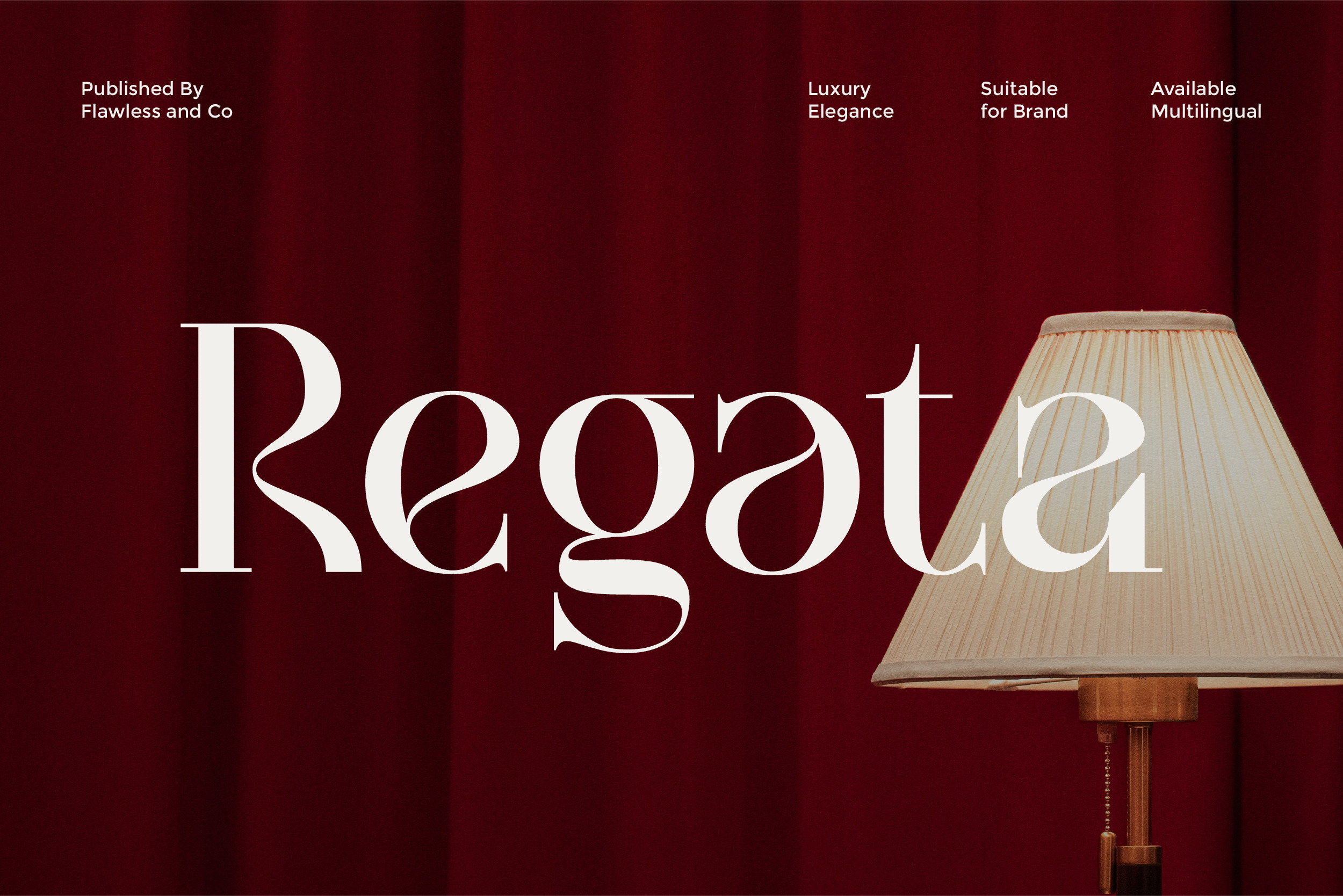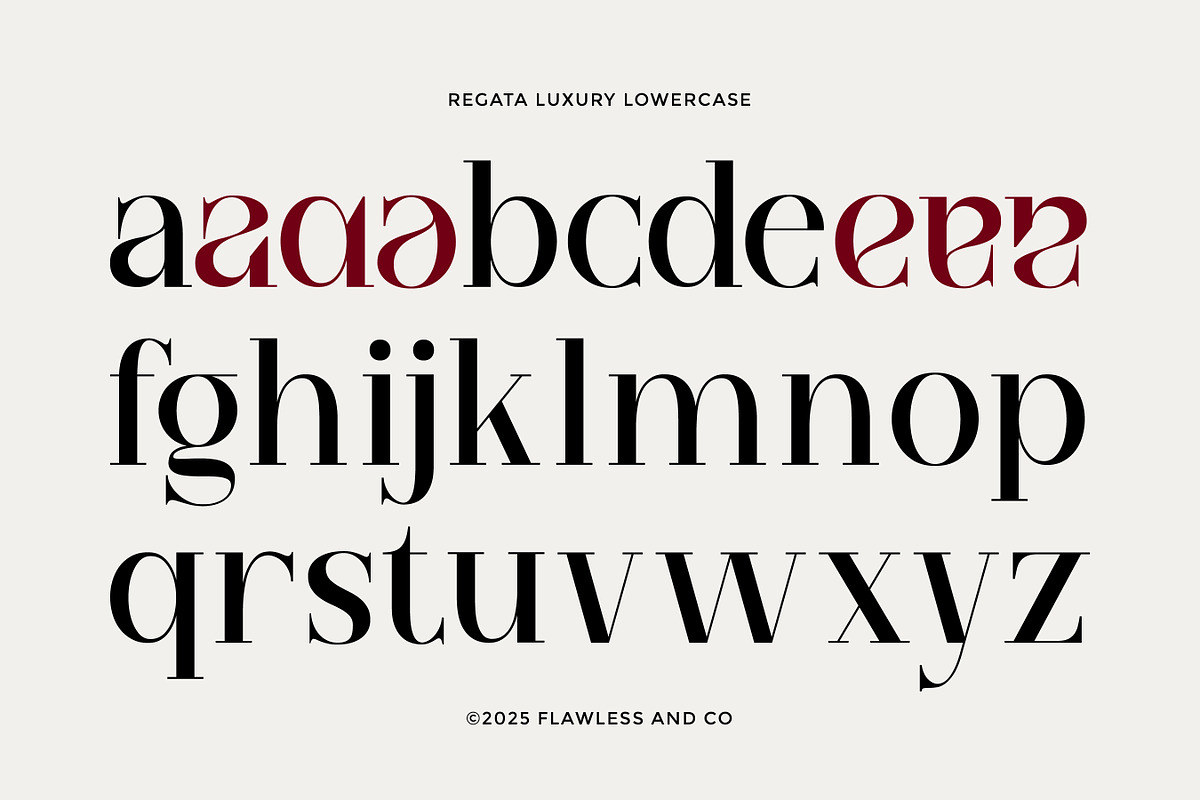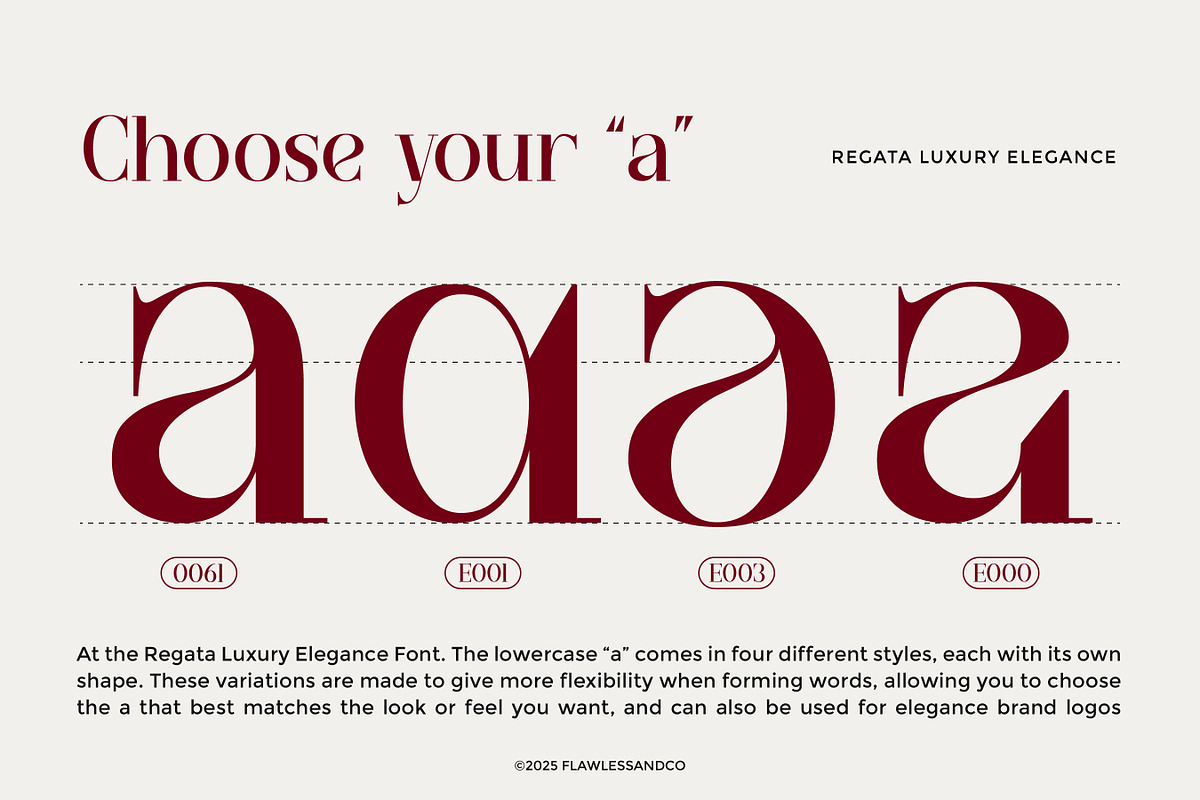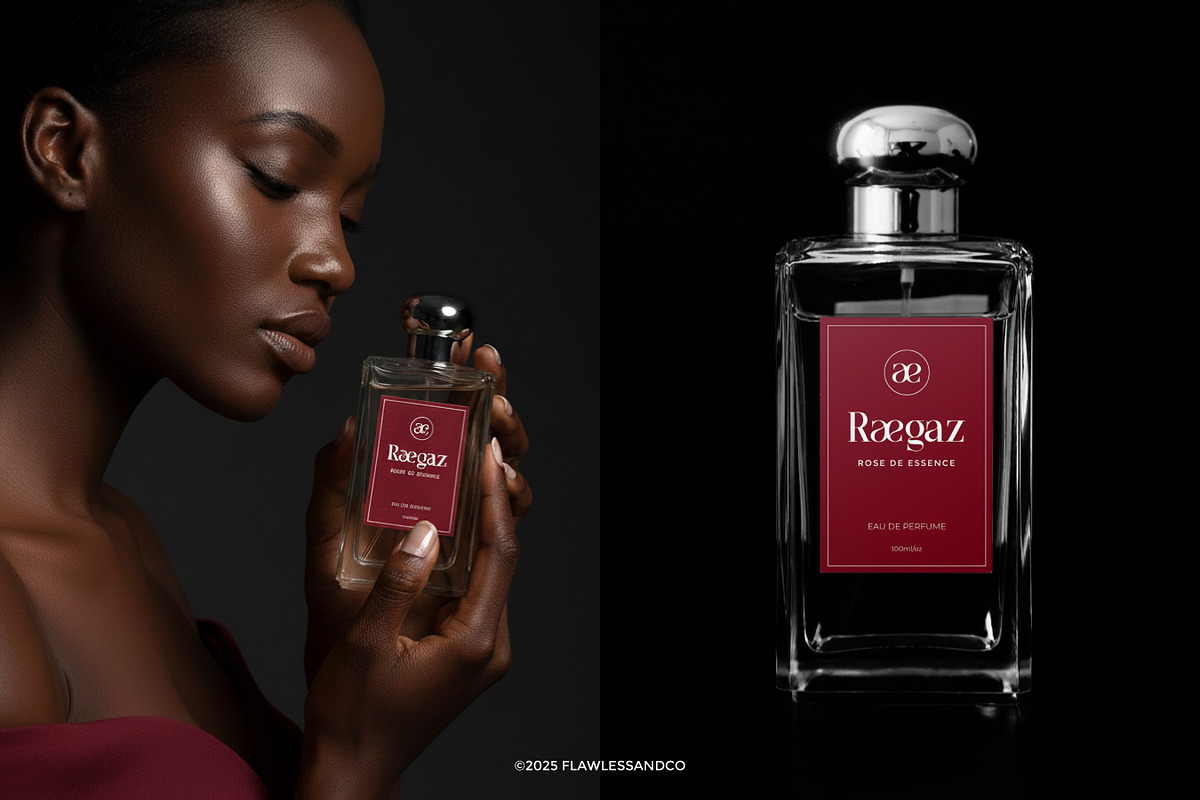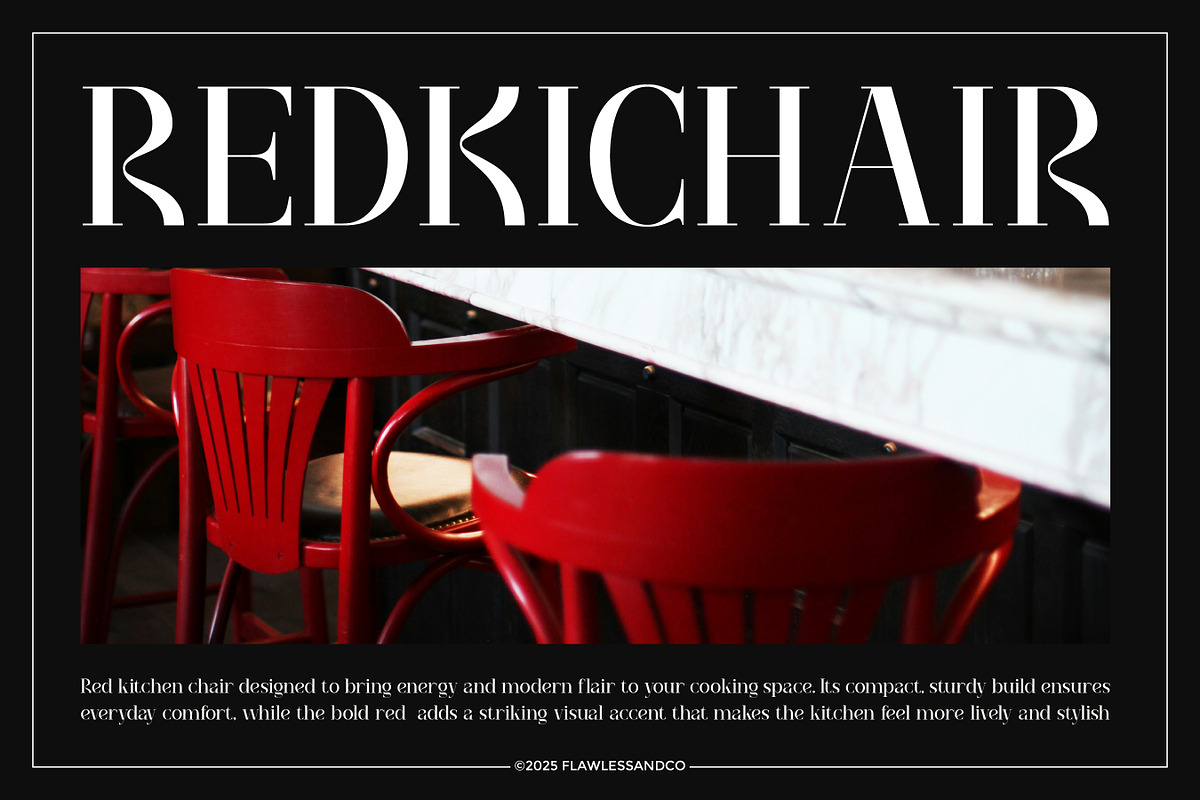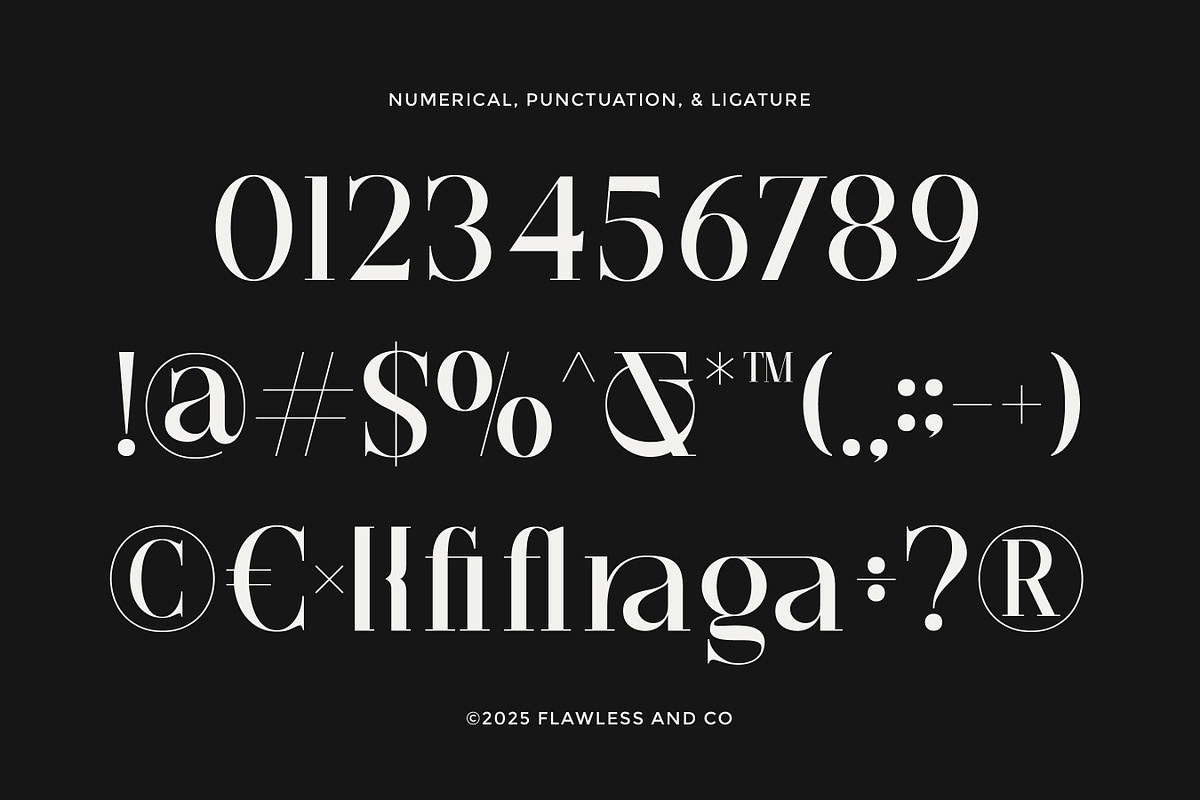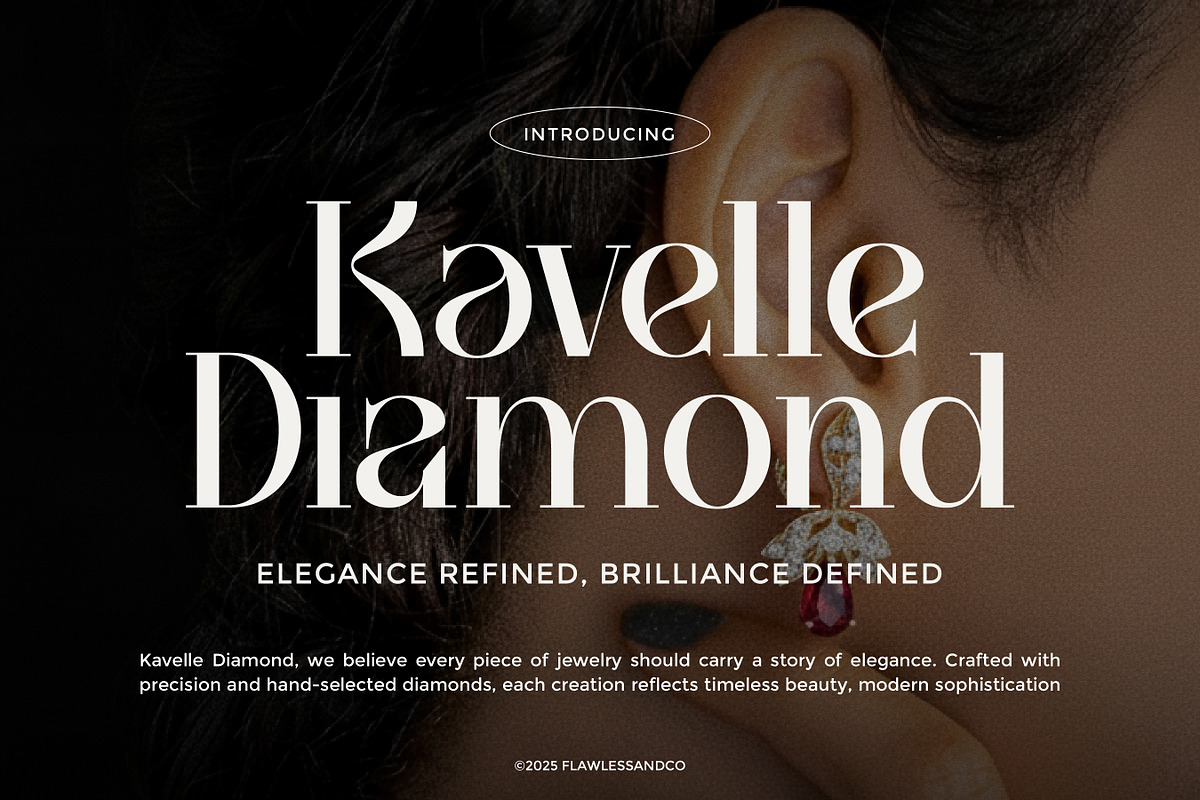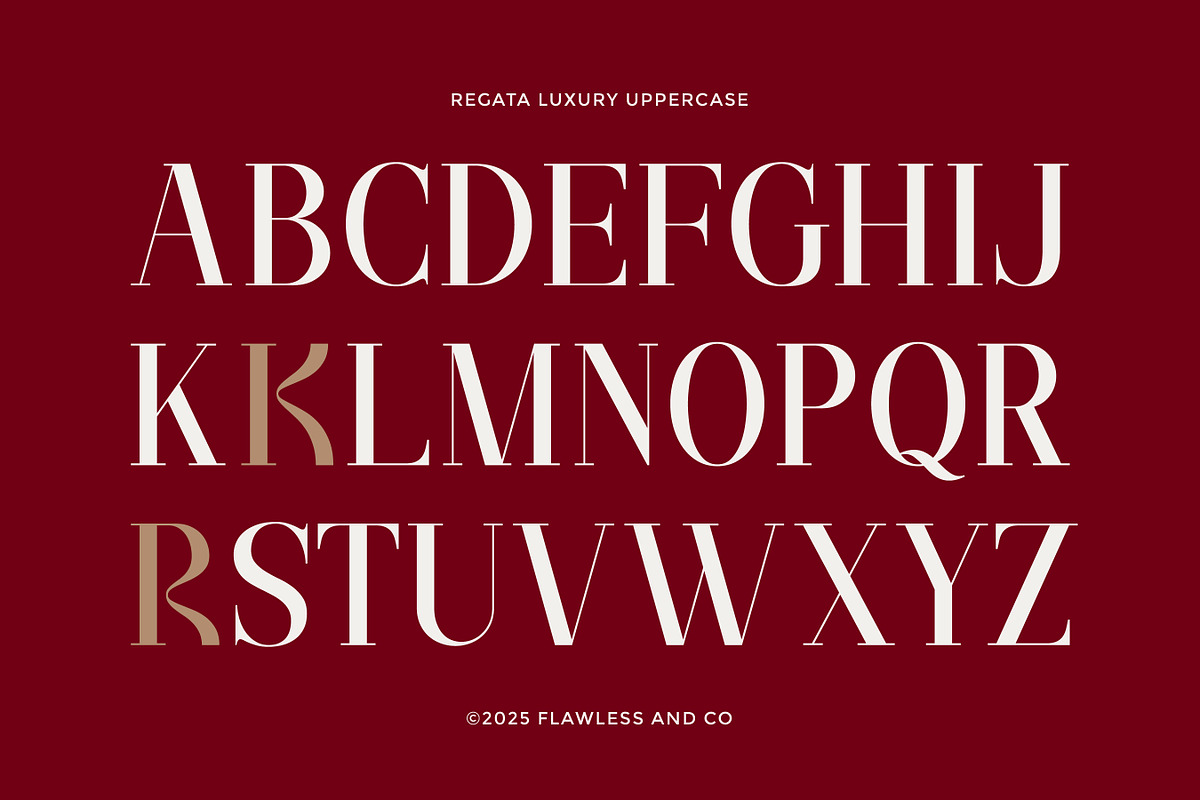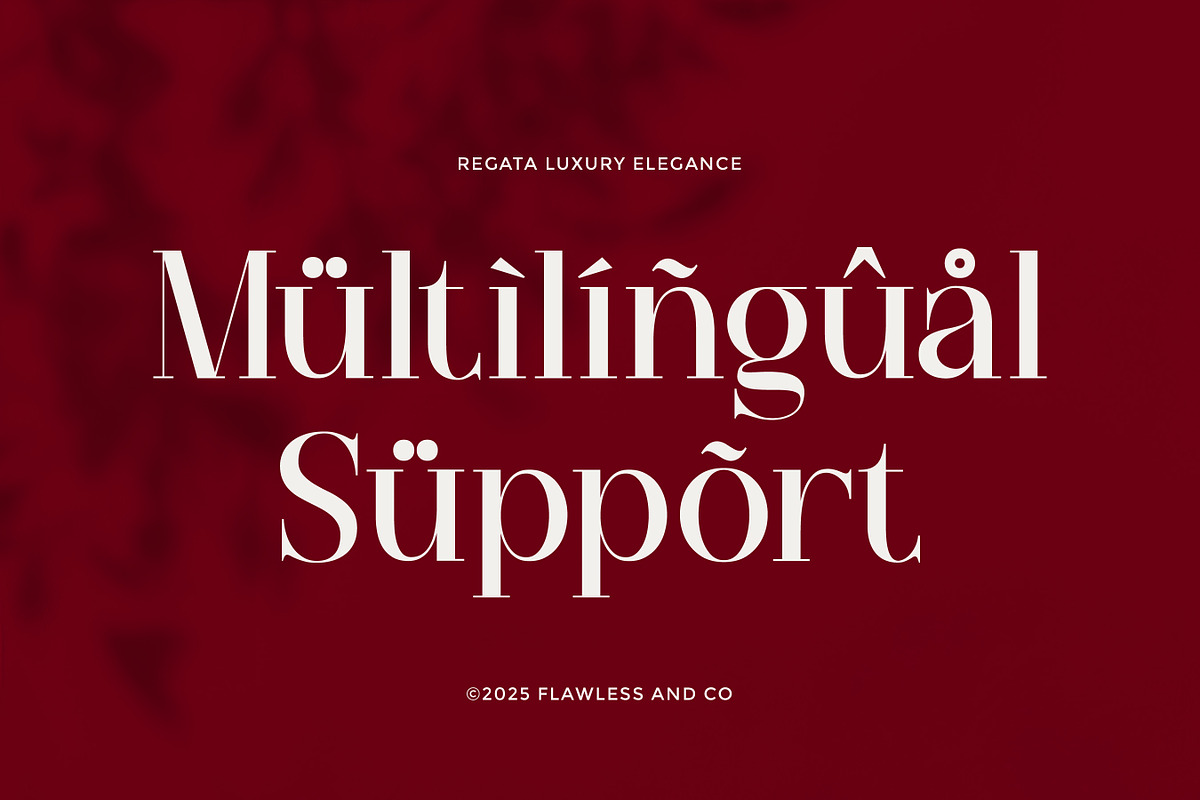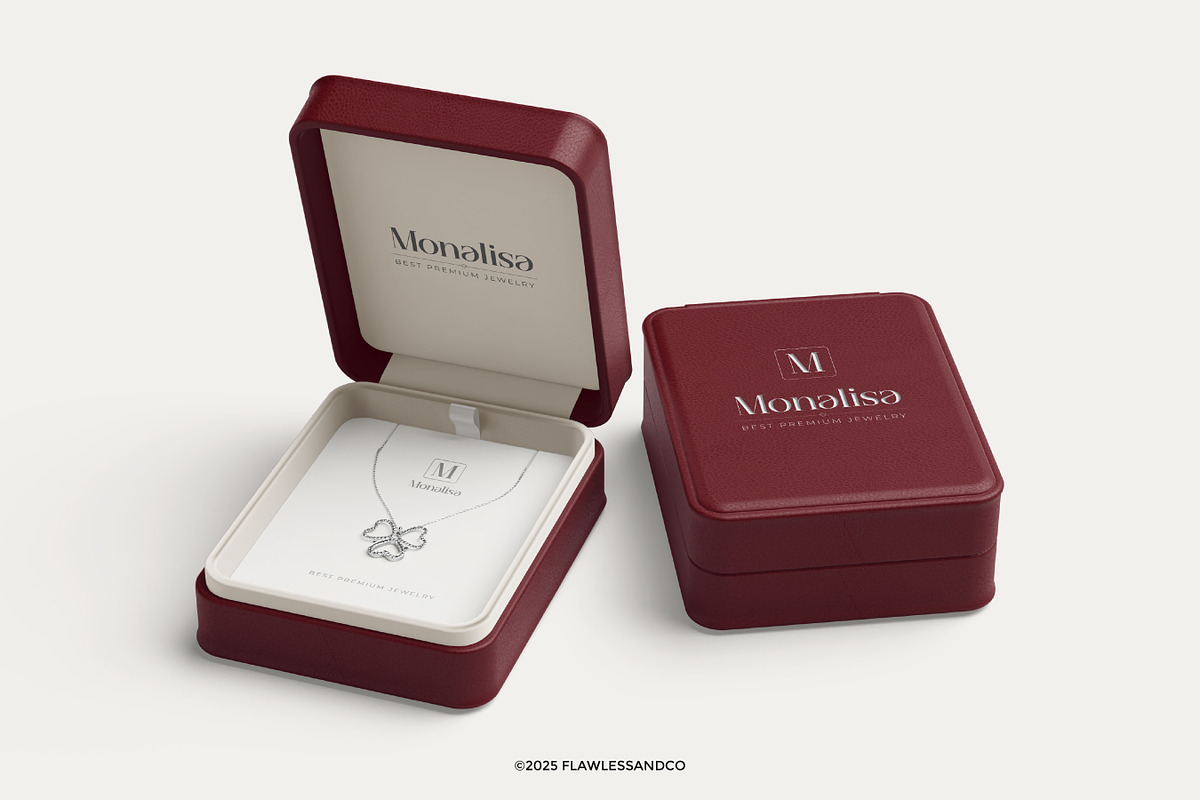
Regata - Elegant Serif Display Font
Regata – Elegant Serif Display Typeface
Regata is an elegant serif display font designed to bring a touch of luxury and sophistication to your visual projects. With refined curves, high contrast strokes, and uniquely shaped letterforms, Regata delivers a timeless aesthetic that elevates branding to a premium level. Its graceful structure makes every word feel exclusive and beautifully crafted—perfect for designers who seek a stylish balance between classic and contemporary typography.
Who Should Use Regata?
Regata is the perfect choice for designers, brands, and creatives who want to present a premium and luxurious visual identity. This font is ideal for those who value refined aesthetics, timeless beauty, and high-quality typography to support exclusive branding experiences. Whether you create high-end packaging, editorial magazine spreads, boutique logos, or luxury product promotions, Regata will help you communicate elegance, class, and artistic sophistication in every detail.
A Must-Have Font for Brand and Logo Creators and Designers
Regata is an essential typeface for designers and branding experts who strive to deliver visual identities with a premium and luxurious impression. Its refined serif details and graceful display style make it the perfect tool for crafting iconic logos, elegant branding systems, exclusive packaging, and high-end editorial layouts. With Regata, every project instantly gains a sense of sophistication and timeless prestige—making it a powerful asset in every designer’s font collection.
Why Choose Regata for "Brand and Logo" Projects?
Regata brings a perfect balance of luxury, elegance, and readability—ideal for building strong and memorable brand identities. Its refined serif curves and high-contrast strokes create a premium visual style that instantly elevates any design. Whether used as a primary logotype, headline, or supporting typography, Regata delivers a polished and sophisticated aesthetic that stands out in competitive markets. With its modern classic character and versatile display nature, Regata helps designers communicate exclusivity, confidence, and timeless beauty through every project.
Suitable For
- Luxury branding and logo design
- Fashion and beauty packaging
- High-end editorial and magazine layouts
- Minimalist product labels
- Wedding and event stationery
- Modern website headers and UI branding
- Social media aesthetics and marketing visuals
- Boutique, jewelry, and lifestyle brand identity